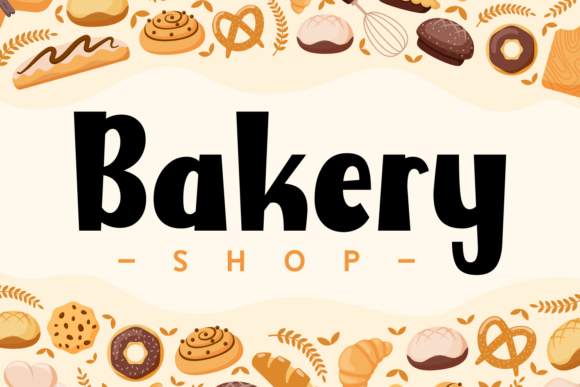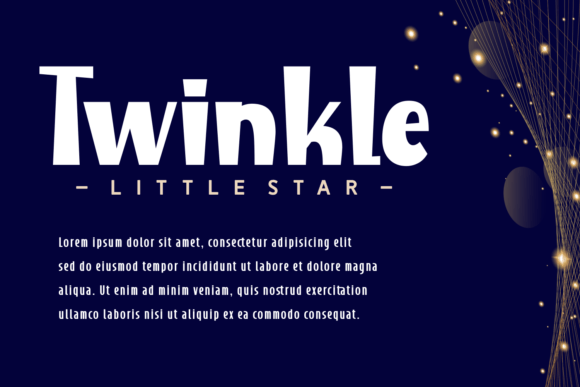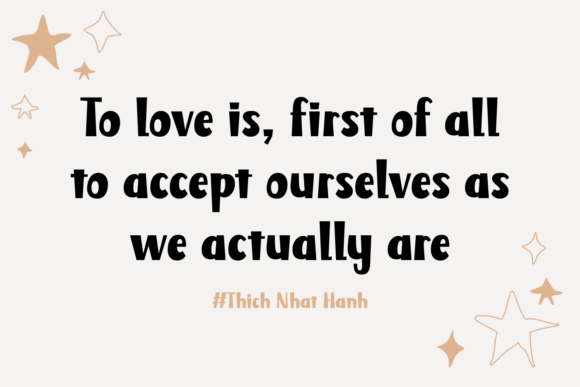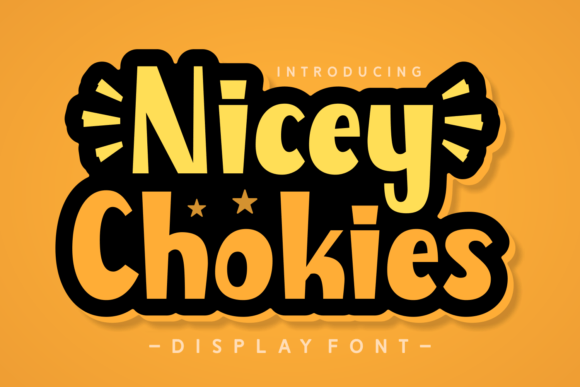
Introduction to Nicey Chokies Font
Nicey Chokies is a playful display font inspired by the starry sky at night.
Add it to your branding, logos, T-shirts, book and movie titles, posters, prints, and more, and they will capture everyone’s attention .
Key Features of Nicey Chokies Font